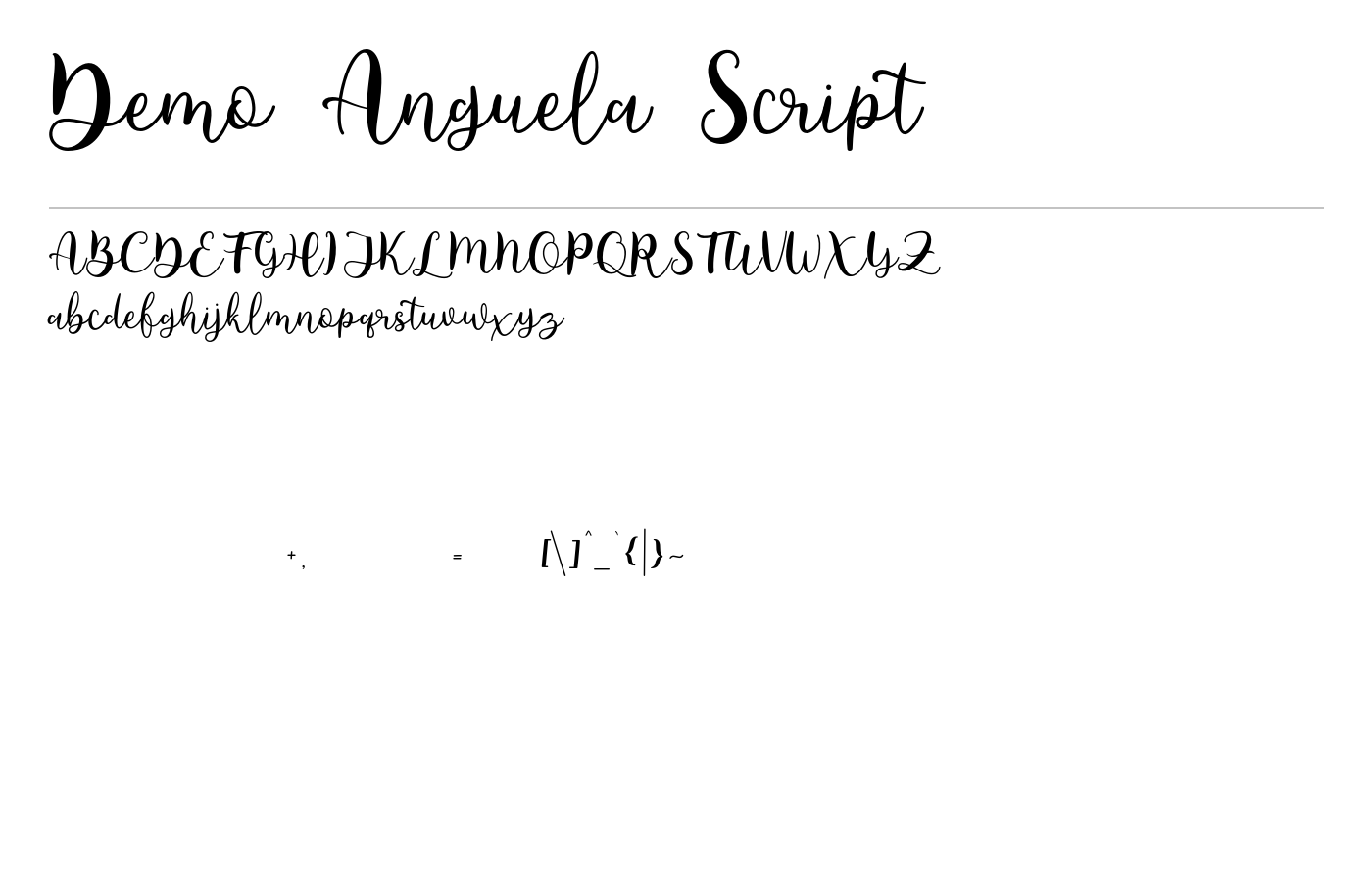
Demo Anguela is a delicate script font with elegant, flowing letterforms that evoke a handcrafted, personal touch. Its thin strokes and playful loops create a light, airy feel perfect for feminine branding, invitations, and creative projects that need a charming and sophisticated style. This font works best in headlines or decorative uses where its graceful script can shine.
Demo Anguela Font
About Demo Anguela Font
| Font family | Demo Anguela Font |
| Designer | Faisal Tanjung |